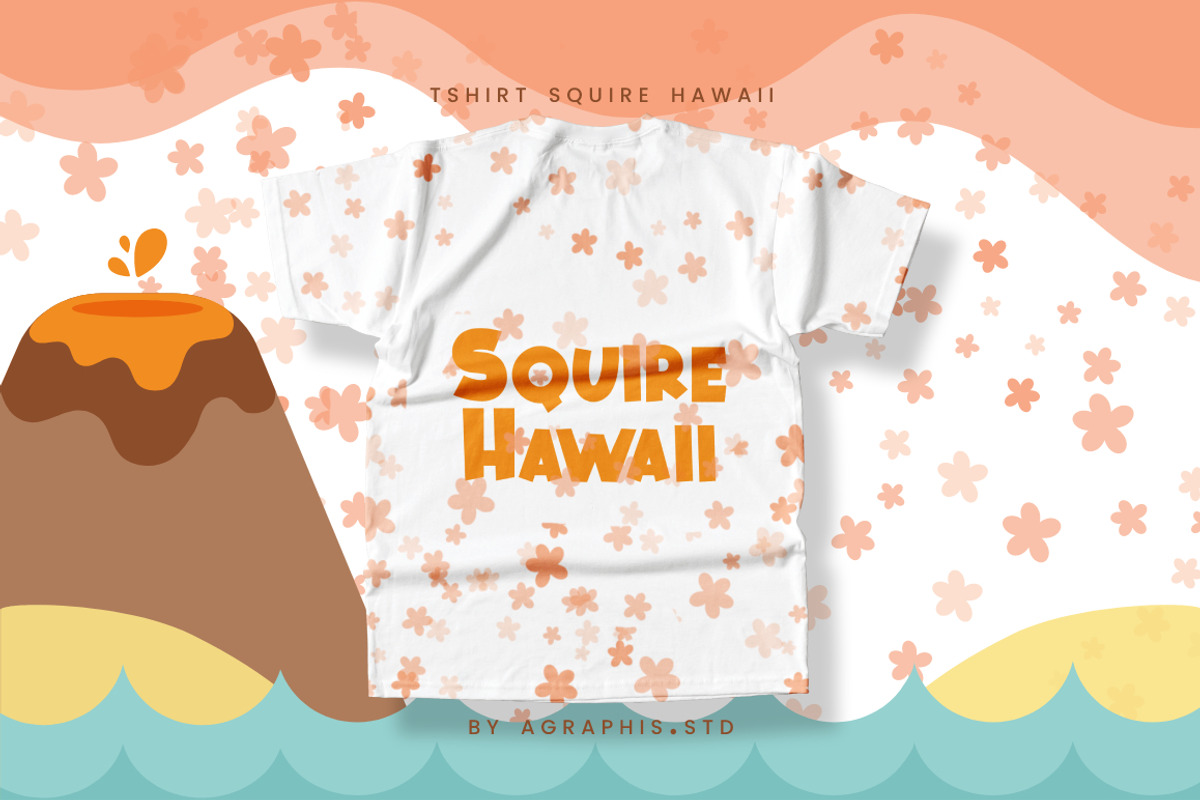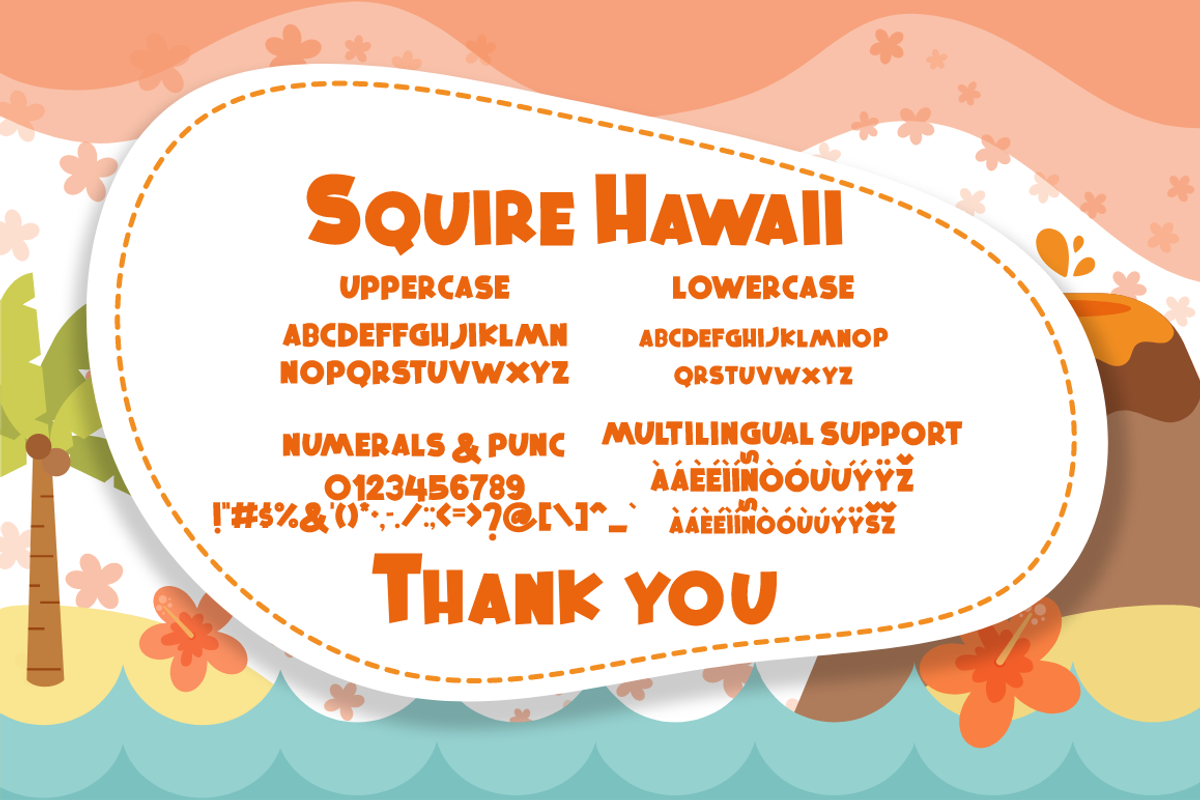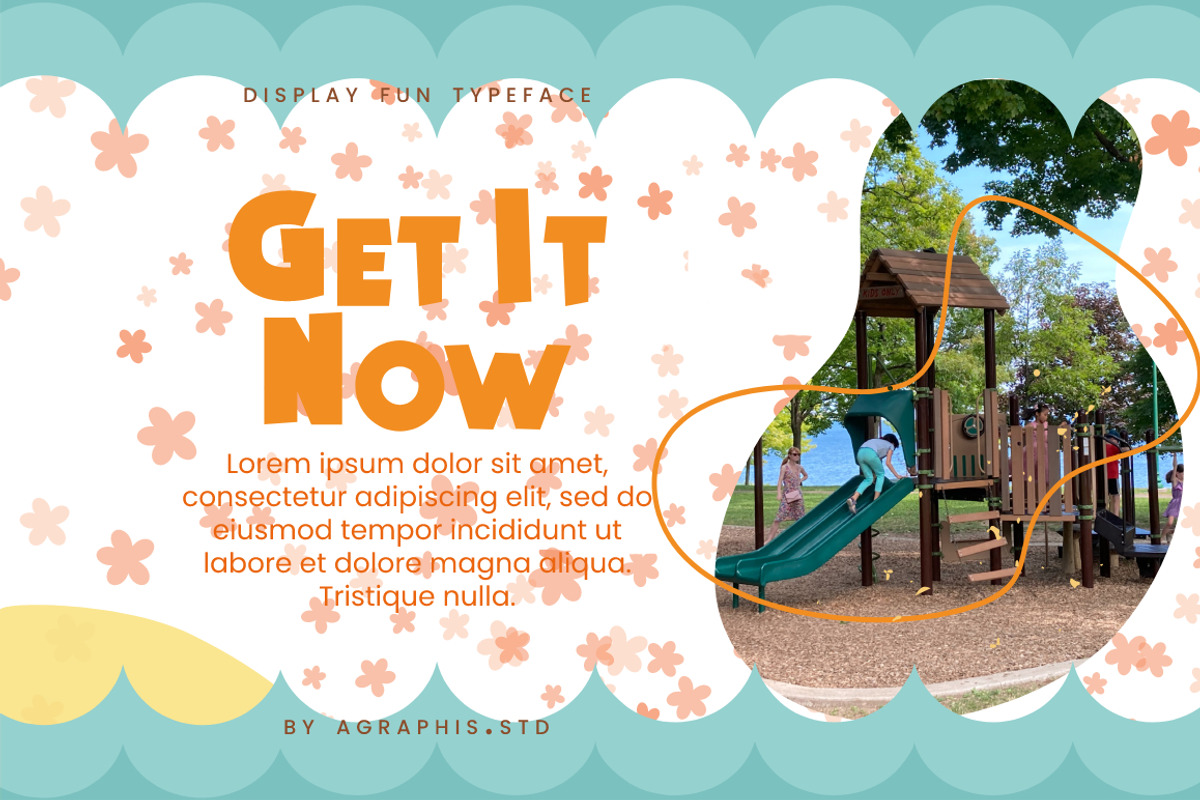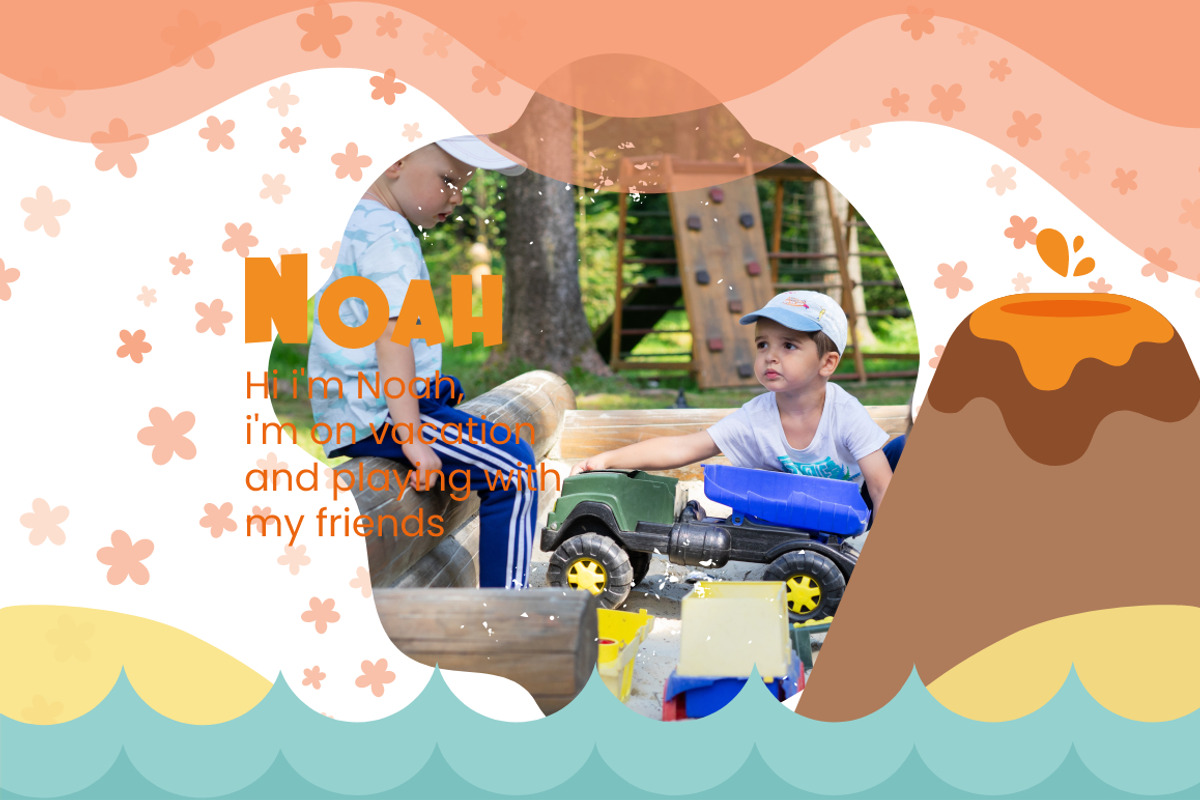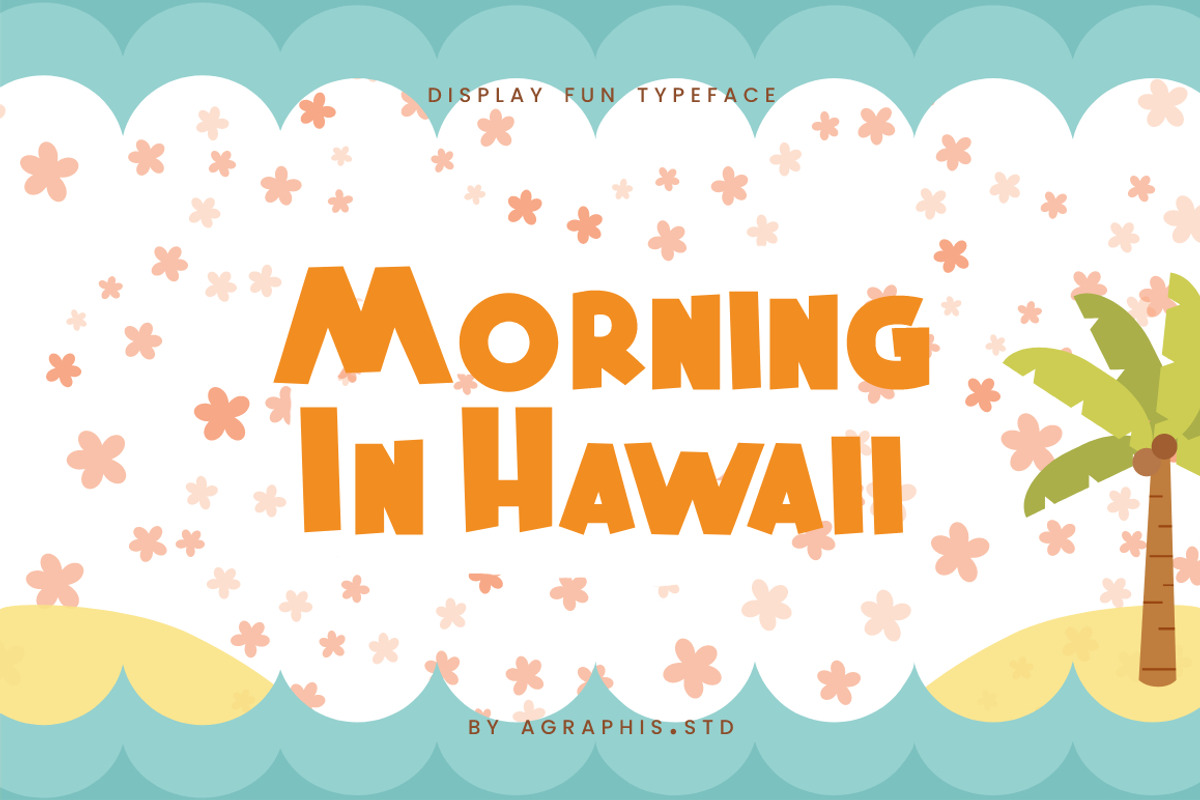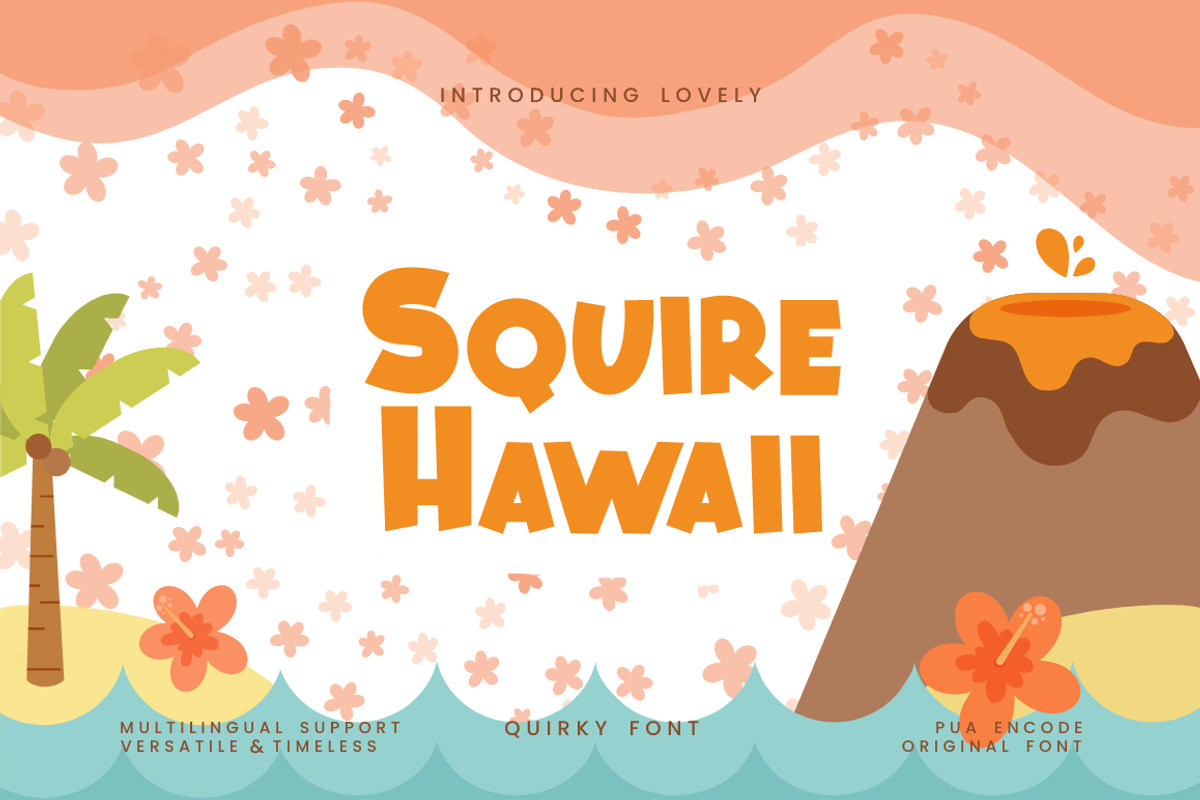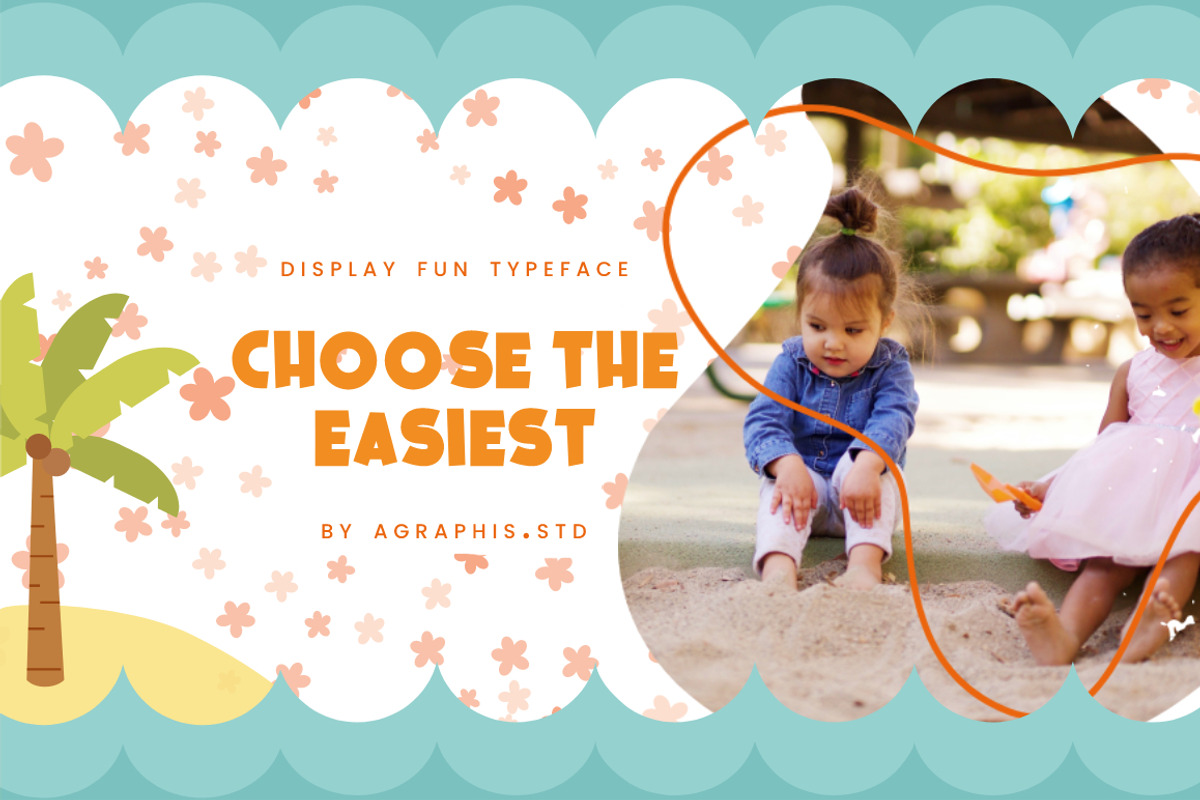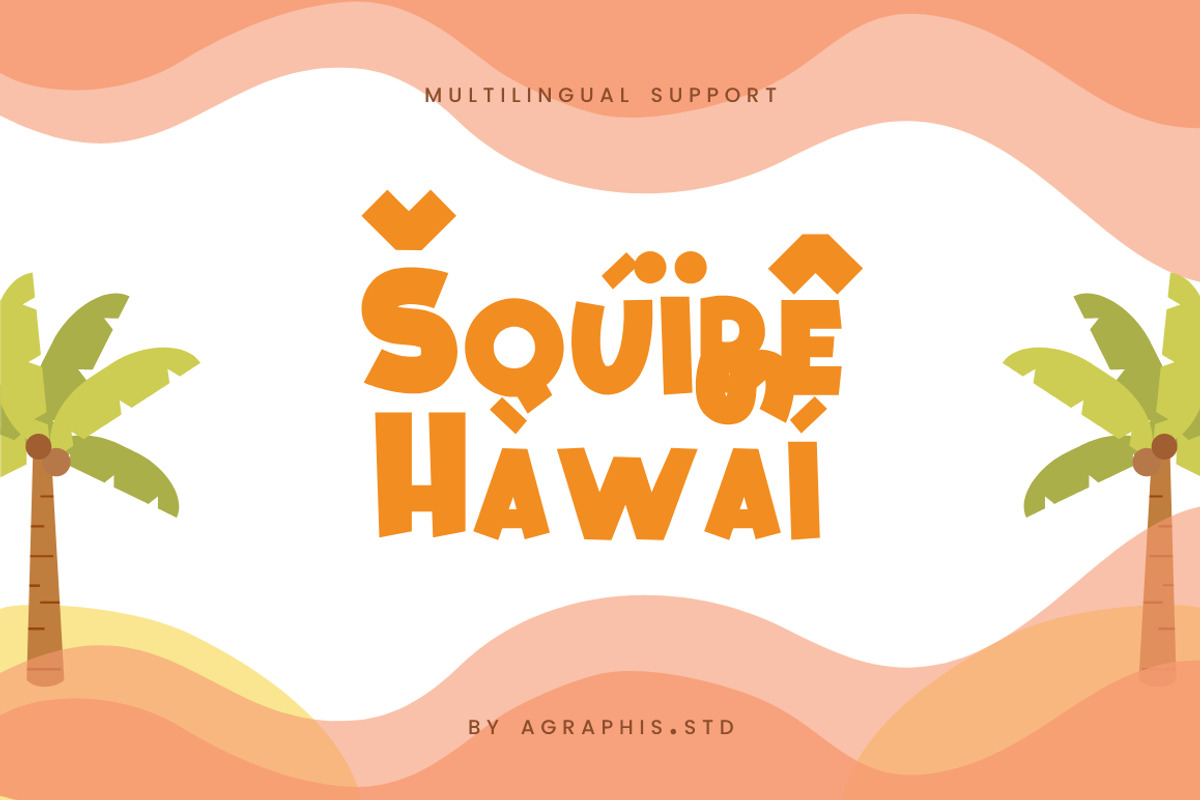
Squire Hawaii Display Font
Squire Hawaii is a quirky display font with a unique style. Fall in love with its playful look and use it to bring any DIY project to life! , from Agraphis Studio, suitable for any projects such as: logos, branding projects, homeware designs, product packaging, mugs, quotes, posters, shopping bags, t-shirts, book covers, name card, invitation cards, greeting cards, label, photography, watermark, special events, and all your other lovely projects that need a beautiful Display taste.
Fonts include multilingual support for; Afrikaans, Albanian, Asu, Basque, Bemba, Bena, Breton, Catalan, Chiga, Cornish, Danish, Dutch, English, Estonian, Faroese, Filipino, Finnish, French, Friulian, Galician, German, Gusii, Indonesian, Irish, Italian, Kabuverdianu, Kalenjin, Kinyarwanda, Luo, Luxembourgish, LuyiaMachame, Makhuwa-Meetto, Makonde, Malagasy, Manx, Morisyen, North, Ndebele, Norwegian, Bokmål, Norwegian, Nynorsk, Nyankole, Oromo, Portuguese, Quechua, Romansh, Rombo, Rundi, Rwa, Samburu, Sango, Sangu, Scottish, Gaelic, Sena, Shambala, Shona, Soga, Somali, Spanish, Swahili, Swedish, Swiss, German, Taita, Teso, Uzbek (Latin) ,olapük, Vunjo, Zulu